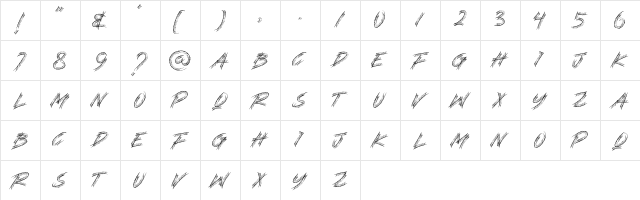
STEREO VILLE Regular Font Preview
STEREO VILLE Regular
STEREO VILLE Regular Font Details
| Designer | AMINMARIO 2020 |
Design Context for STEREO VILLE Typeface
STEREO VILLE is a composed and adaptable typeface that performs quietly and consistently across a wide range of design contexts.